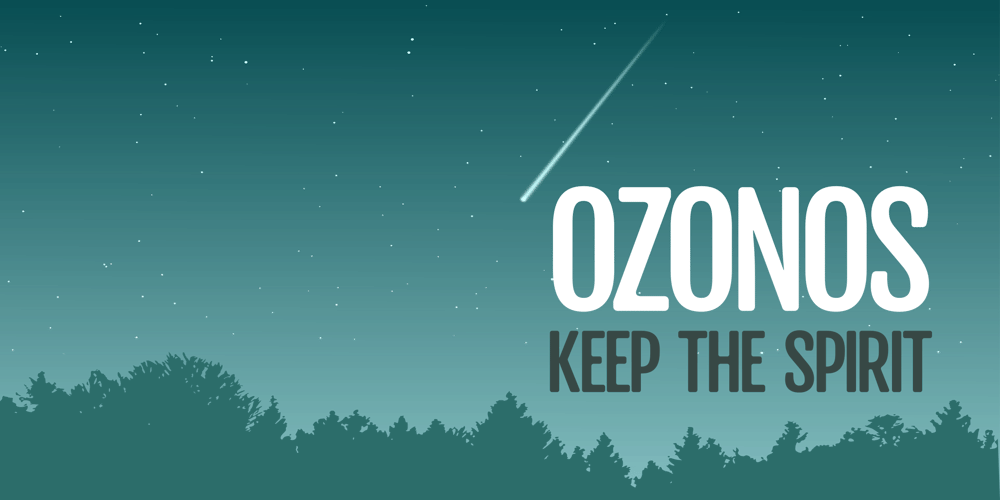
Ozonos Font Family was designed by Ahsan Ahmedzai and published by Kufic Studio. Ozonos contains 5 styles and family package options. Ozonos is a brand & design font to make your products look more bold and elegant. Rounded, Elegant, Minimalist & Bold Font that goes smoothly with any font, especially script fonts.The bold design of the font emphasizes your product, brand design and will surely satisfy your clients.The complete font set will surely bring a chic design touch to your website, the font is designed so easily be read & bring the bold effect to any kind of design. Kufic Studio is a platform that provides professional and high quality designs & fonts to fill the gap that has been missing in the market.